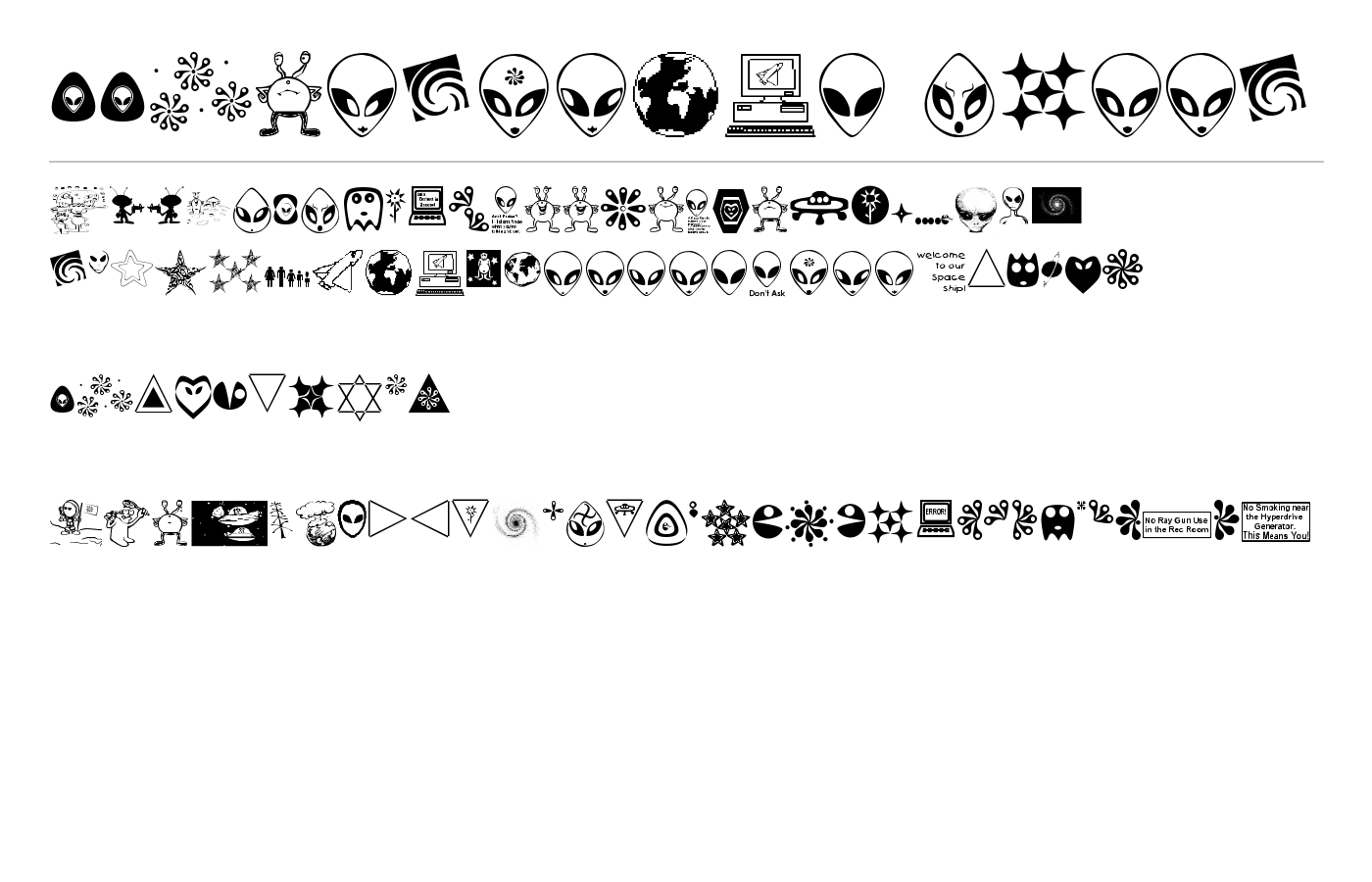
001Starship Gámma is a playful dingbat font filled with quirky space-themed icons, including aliens, spacecraft, stars, and cosmic symbols. Its bold and graphic style makes it perfect for adding a fun, futuristic touch to creative projects like posters, invitations, and themed packaging. This font works best when used as decorative elements to evoke a lighthearted sci-fi vibe.
001Starship Gámma Font